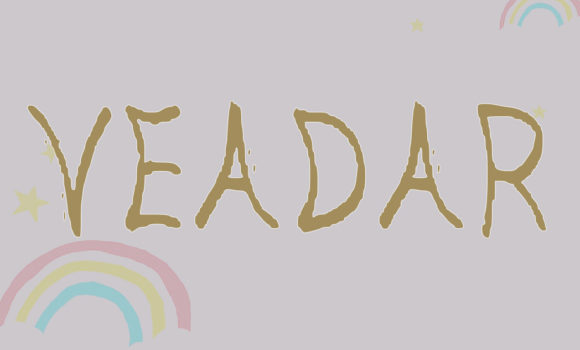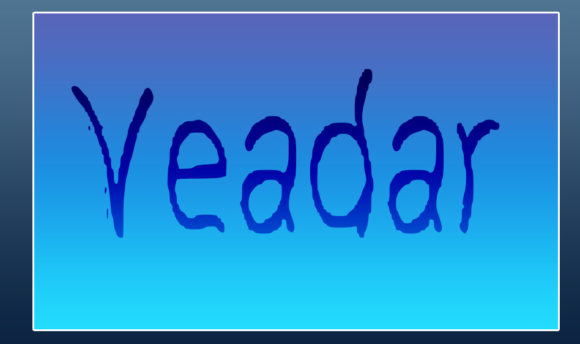
Veadar Font
About Veadar Font
Veadar is a cool and brushed handwritten font that brings a stylish and contemporary vibe to your designs. This typeface is an excellent choice for a variety of applications, including product packaging, branding projects, magazine covers, social media graphics, wedding materials, or any context where you want to express words with a trendy touch.
The cool and brushed style of Veadar adds a dynamic and modern feel to your text. It’s particularly well-suited for projects that require a combination of casual and stylish elements, such as product packaging or social media posts. The font’s brushed appearance contributes to a visually appealing and energetic look.
Veadar’s versatility makes it adaptable to different design contexts, ensuring its effectiveness in various creative projects. Whether you’re working on branding, magazine covers, or wedding materials, this font’s contemporary design allows it to make a statement and capture attention.
The brushed handwritten quality of Veadar adds a personal and authentic touch to your text, making it engaging and relatable. Its expressive nature makes it suitable for conveying a range of emotions and styles, from casual to edgy, depending on your design requirements.
In summary, Veadar is more than just a font; it’s a cool and brushed handwritten typeface that enhances the modern aesthetic of your designs. Whether used for product packaging, branding, social media, or weddings, let Veadar be the font that adds a trendy and dynamic touch to your creative projects, making each piece a visually appealing expression of contemporary style.